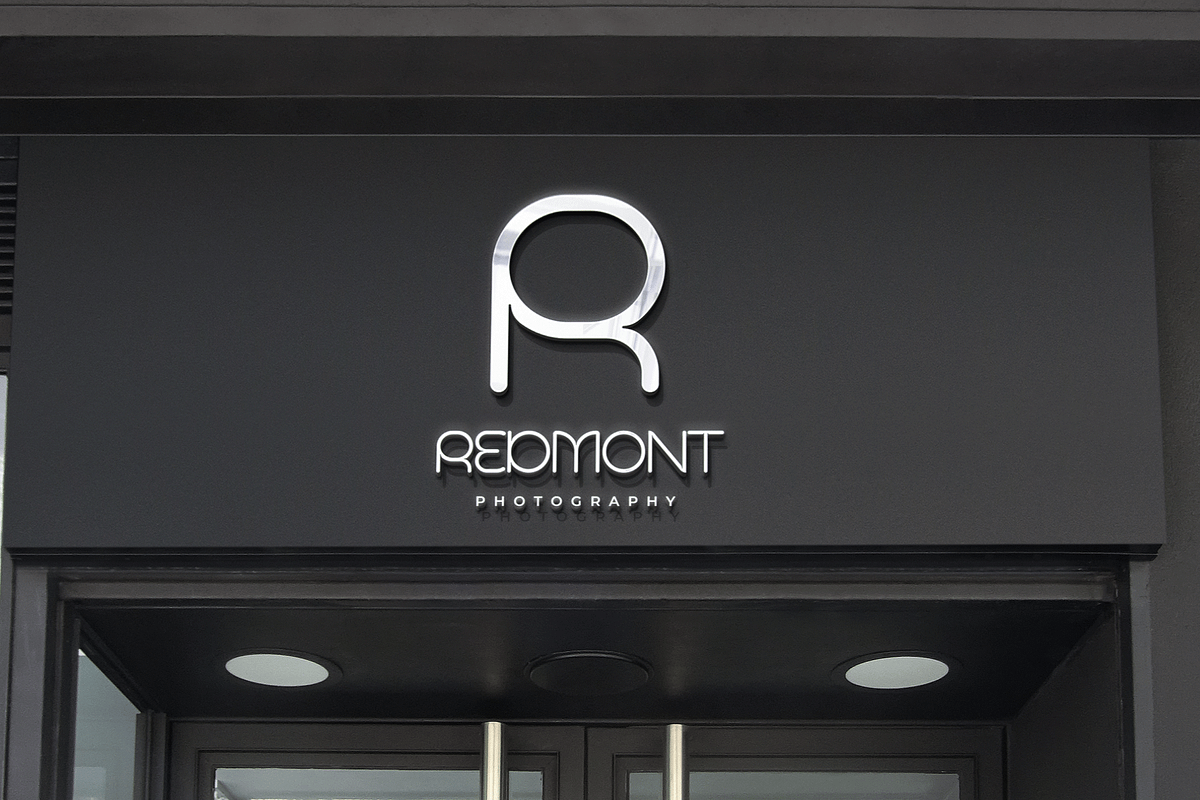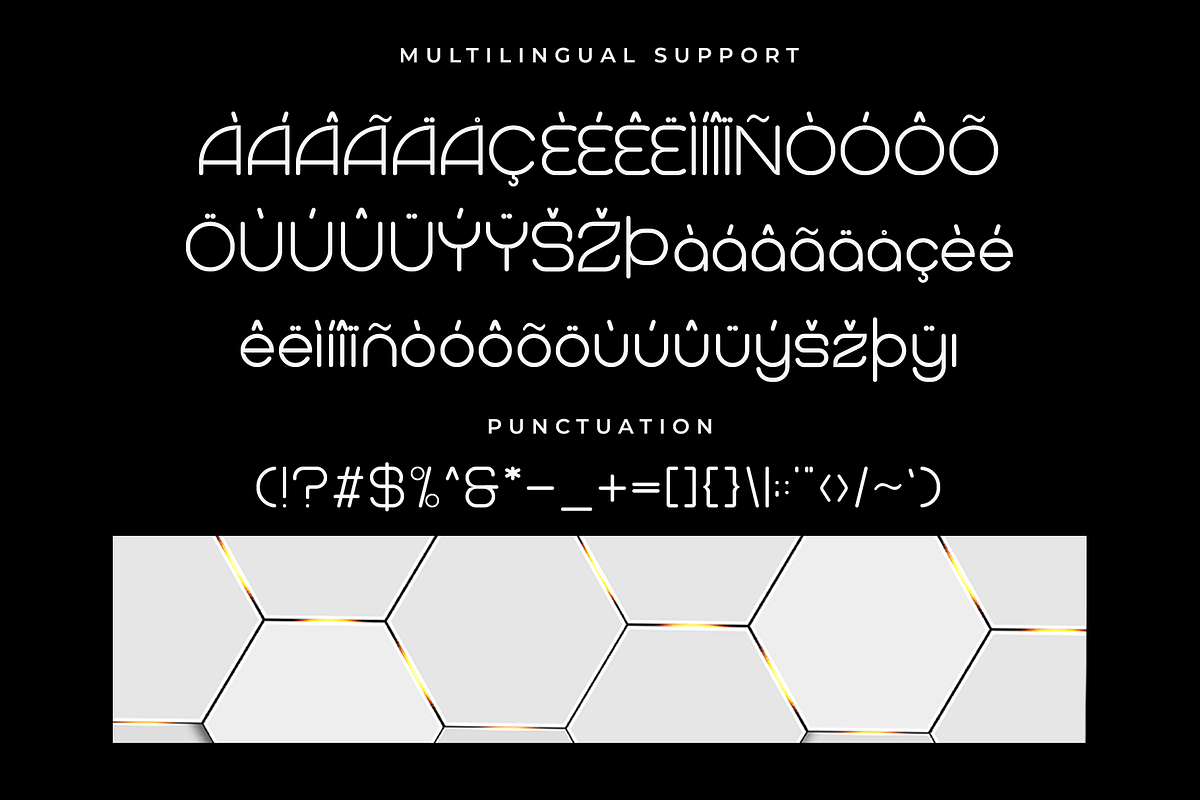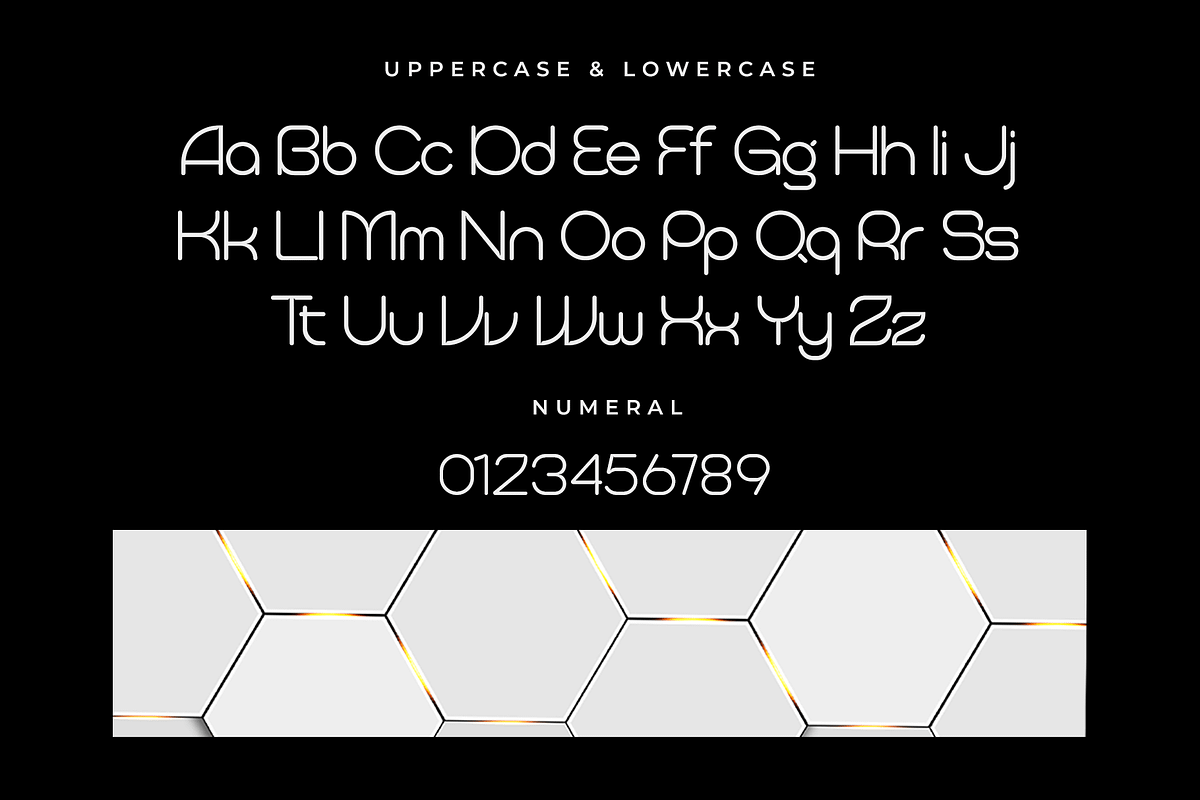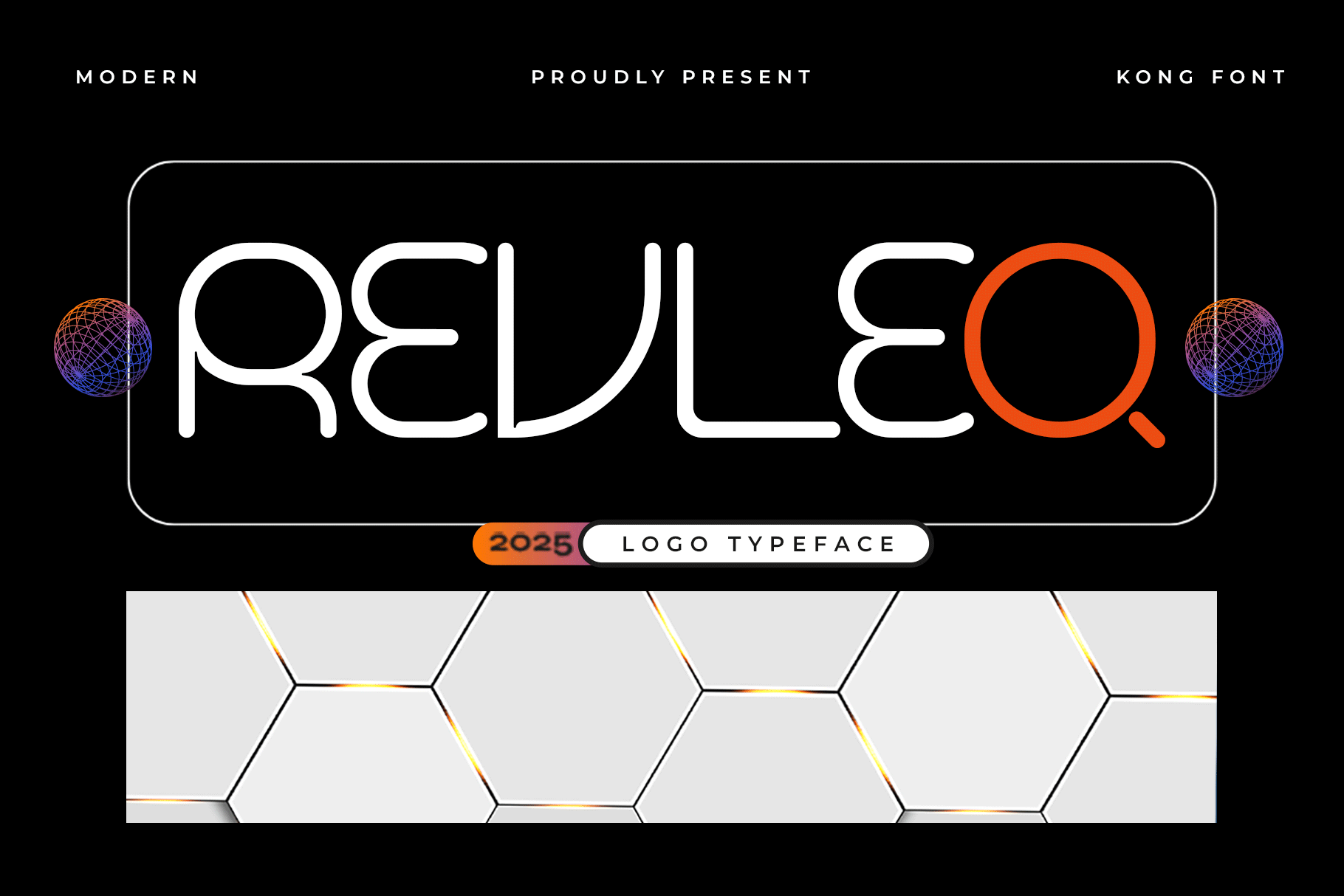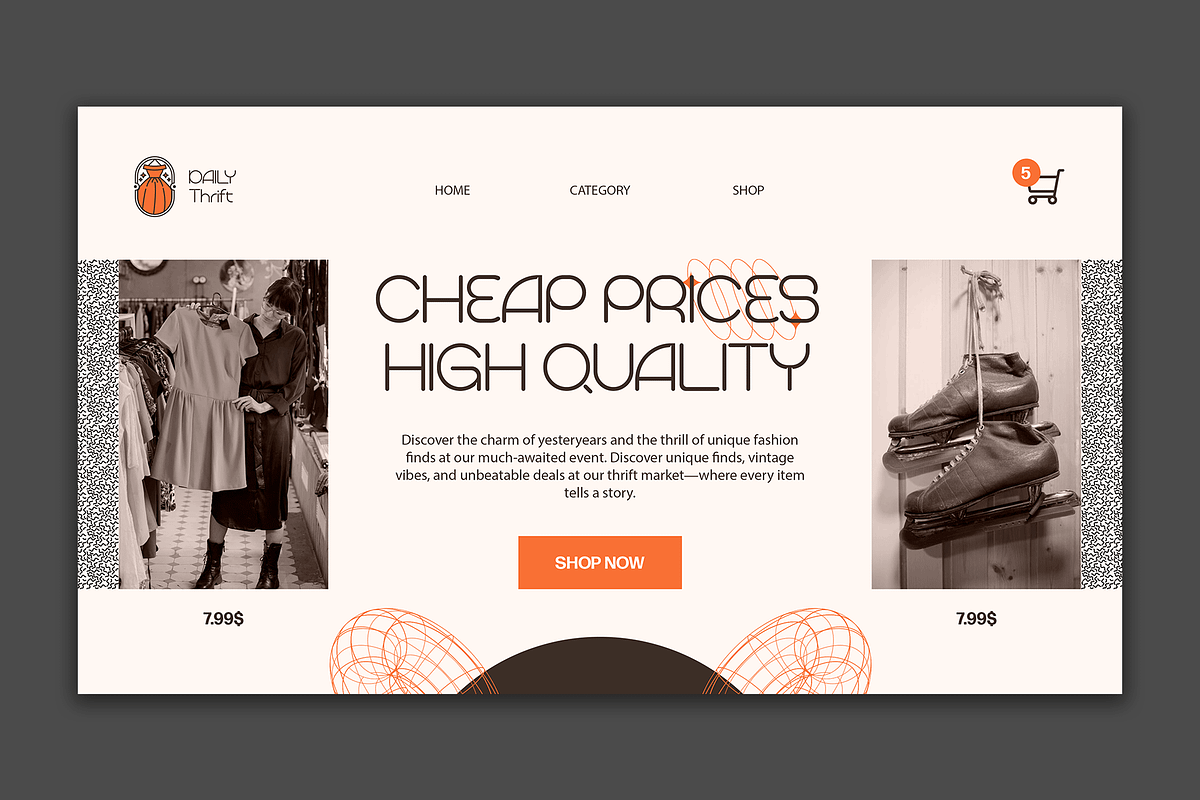
Revleq – A Modern Logo Typeface
Revleq is a bold and stylish modern logo typeface crafted to elevate your branding and design projects with a sleek, contemporary edge. With its clean geometry, sharp angles, and minimal aesthetic, Revleq is the perfect fit for logos, headlines, tech brands, product packaging, and high-impact visuals.
This typeface is designed to make a strong first impression. Its modern form combines elegance and structure, making it versatile for various industries—from fashion to technology. Whether you're designing a startup identity or crafting a bold title, Revleq brings a confident, professional look.
Take your branding to the next level with Revleq, where simplicity meets strength in every character.